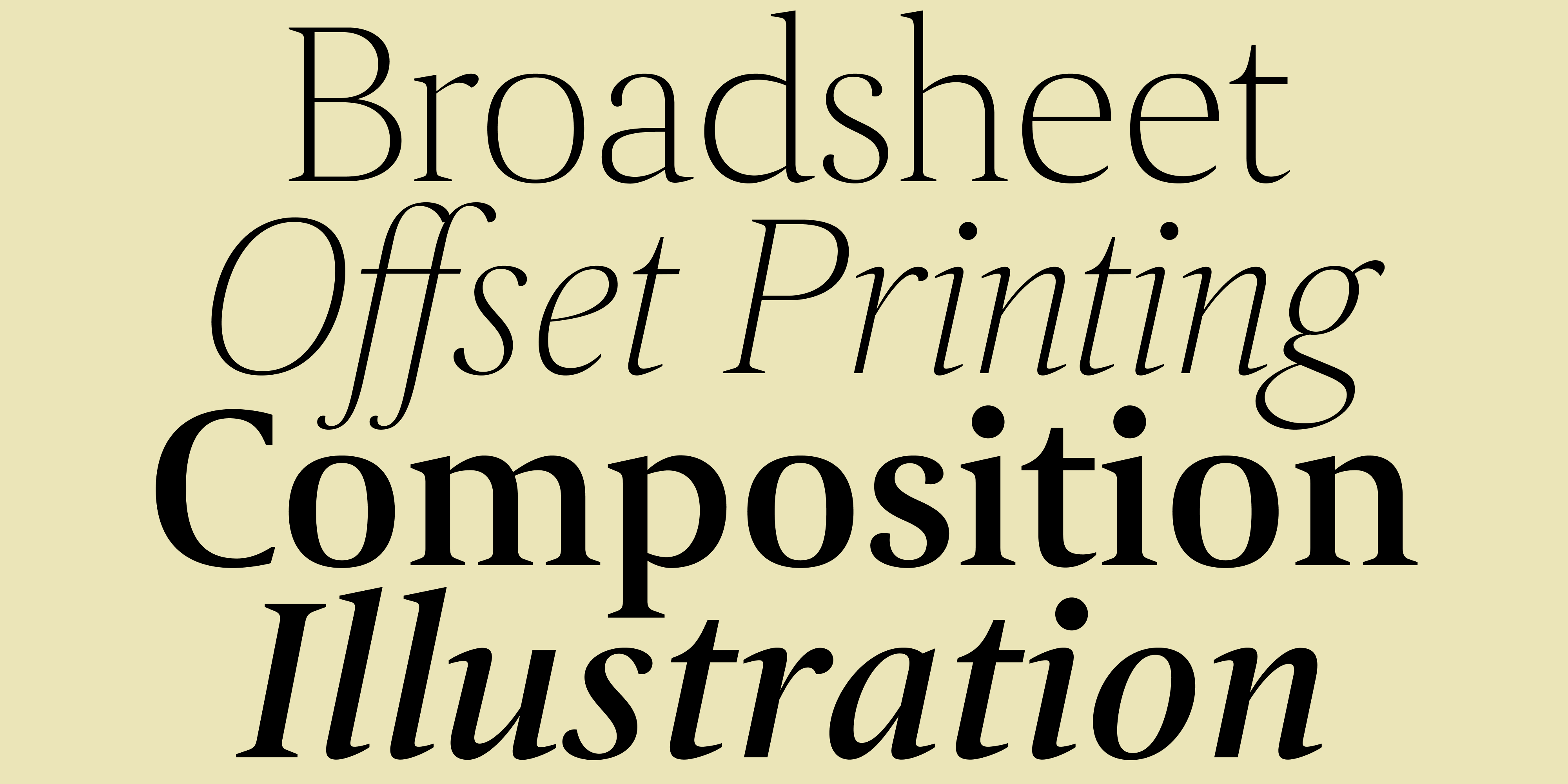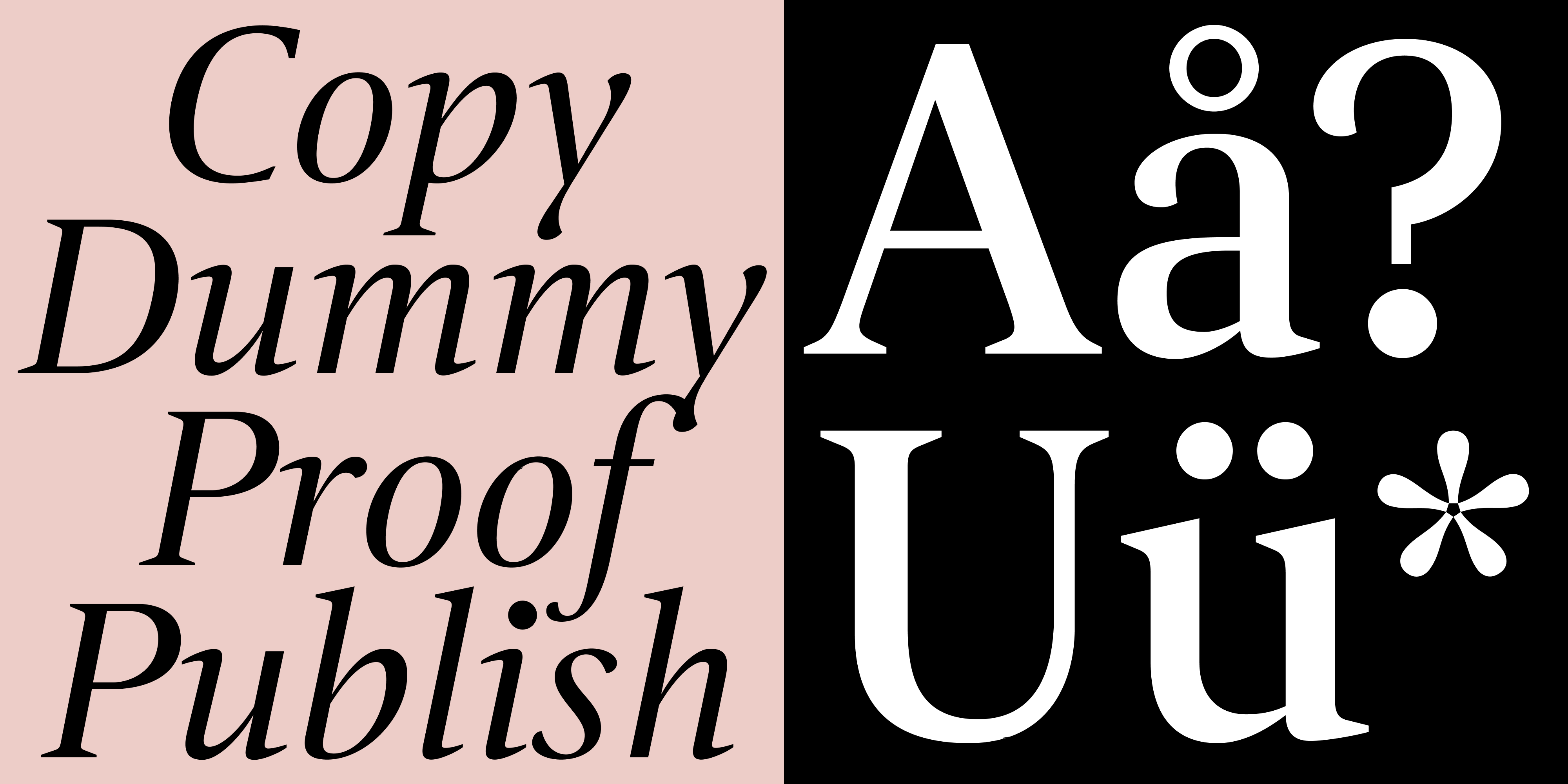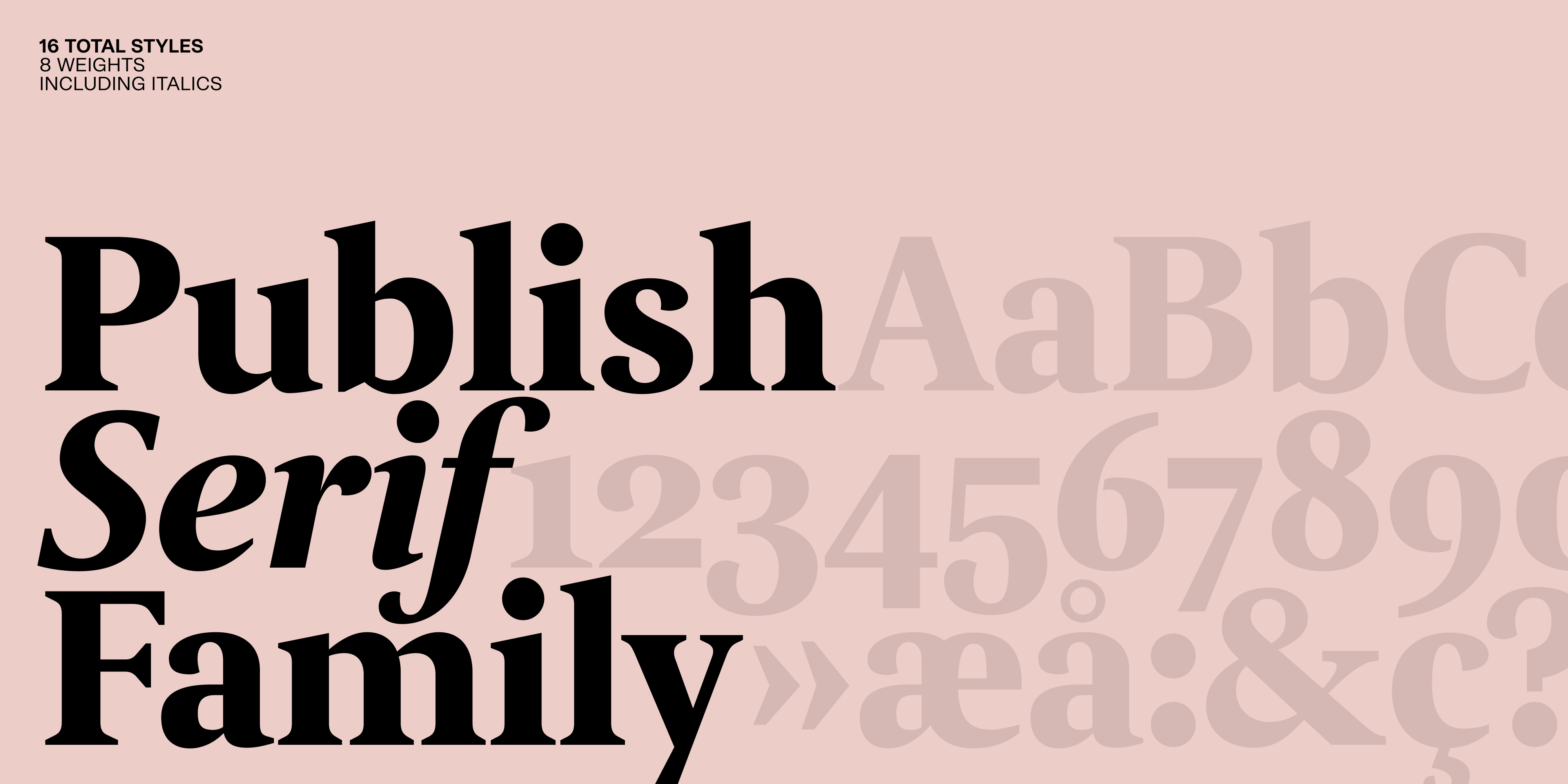
The Publish family was originally developed exclusively for the short-lived but ambitiously conceptual Danish newspaper ‘Dagen’ (The Day). Consisting of Publish Gothic, Publish Sans and Publish Serif, the family is now available for all to enjoy.
Publish Serif is an elegant yet functional serif typeface sharing proportions with its feetless relative Publish Sans. With its subtle floral detailing and a sturdy construction Publish Serif is a versatile do-it-all typeface. Publish Serif works great in smaller sizes where it can function as your go-to serif text typeface, but it performs just as well in bigger sizes where you get to appreciate the detailing and its display-like qualities.
Available in eight weights from Extralight to Black with corresponding italics.